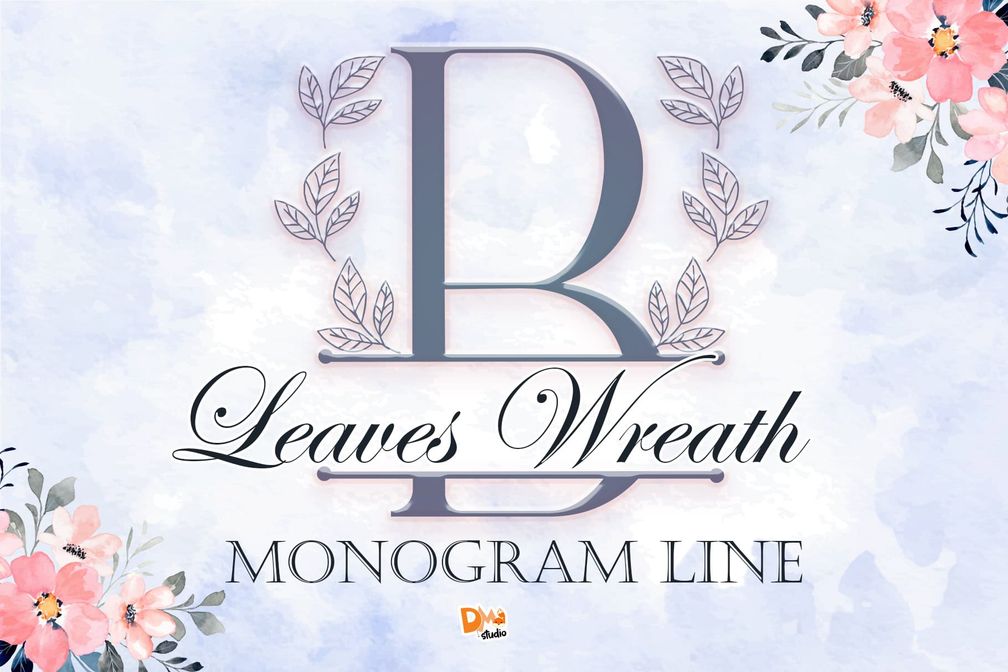
Leaves Wreath Monogram Line Font
Leaves Wreath Monogram Line Font is a stylish and elegant typeface designed to adorn your designs with a touch of sophistication. Featuring delicate lines and intricate leaf wreath elements, this font is perfect for creating monograms, logos, invitations, and other decorative projects. Elevate your designs with the timeless beauty of Leaves Wreath Monogram Line Font.
1. Stylish and Elegant Design: Leaves Wreath Monogram Line Font boasts a sophisticated design with intricate leaf wreath elements, adding a touch of timeless beauty to your text.
2. Versatility in Application: Ideal for creating monograms, logos, invitations, stationery, and decorative elements, providing a touch of sophistication to your designs.
5. Monogram Elements: Includes a variety of monogram elements featuring elegant leaf wreaths, providing versatility and customization options for your designs.
6. Uppercase Letters: The font includes uppercase letters adorned with delicate leaf wreaths, allowing you to create personalized monograms and decorative text.